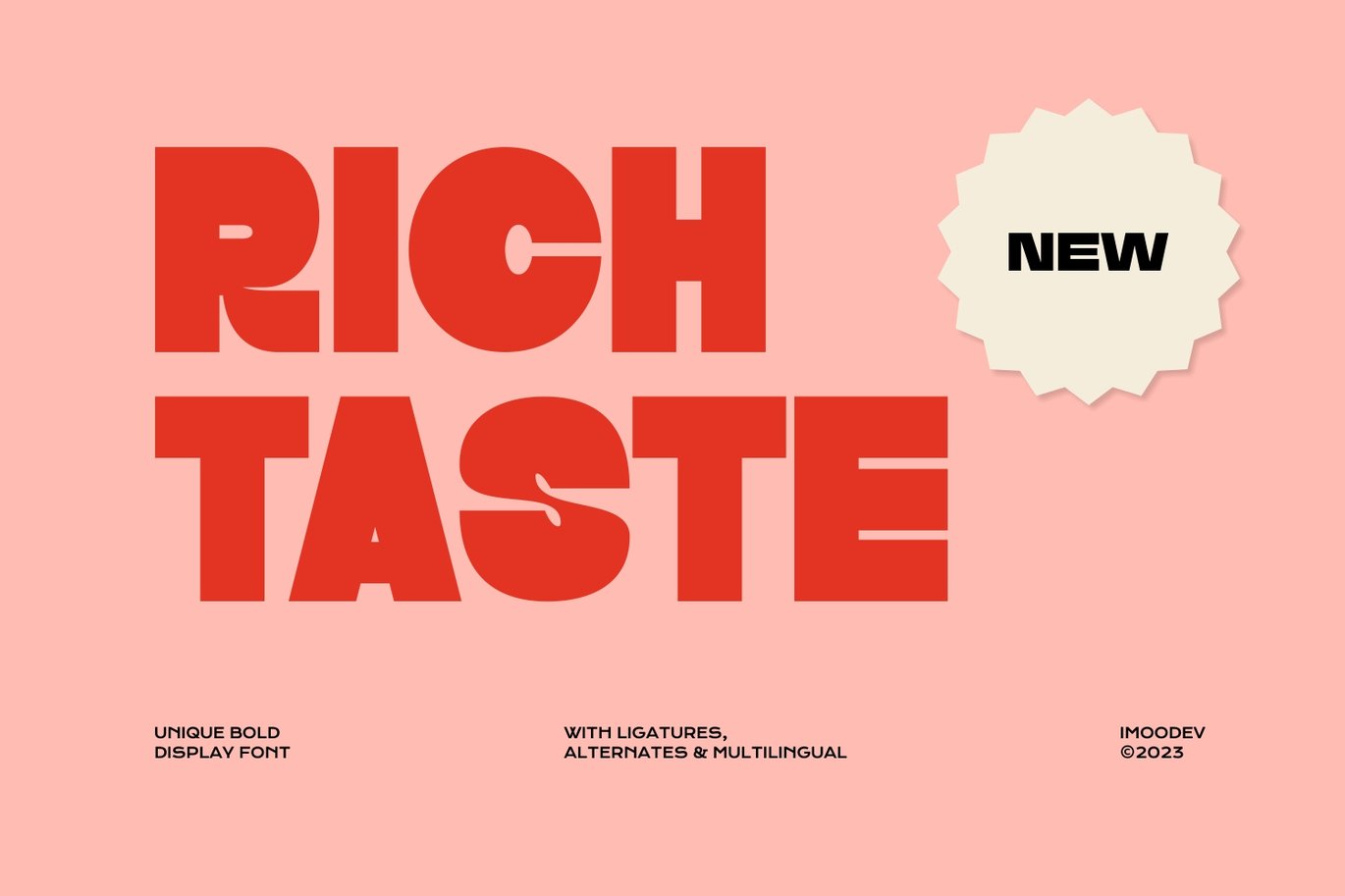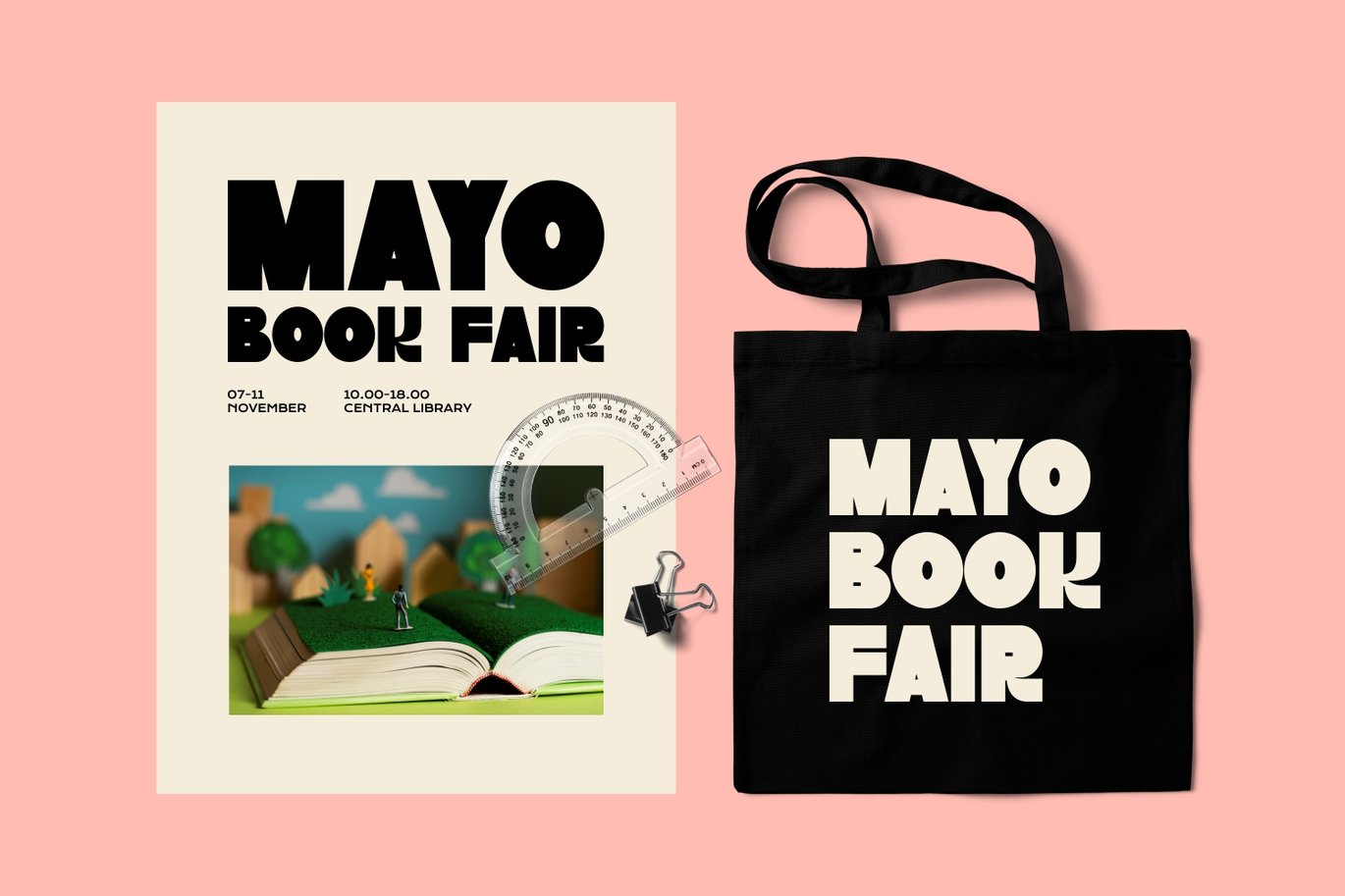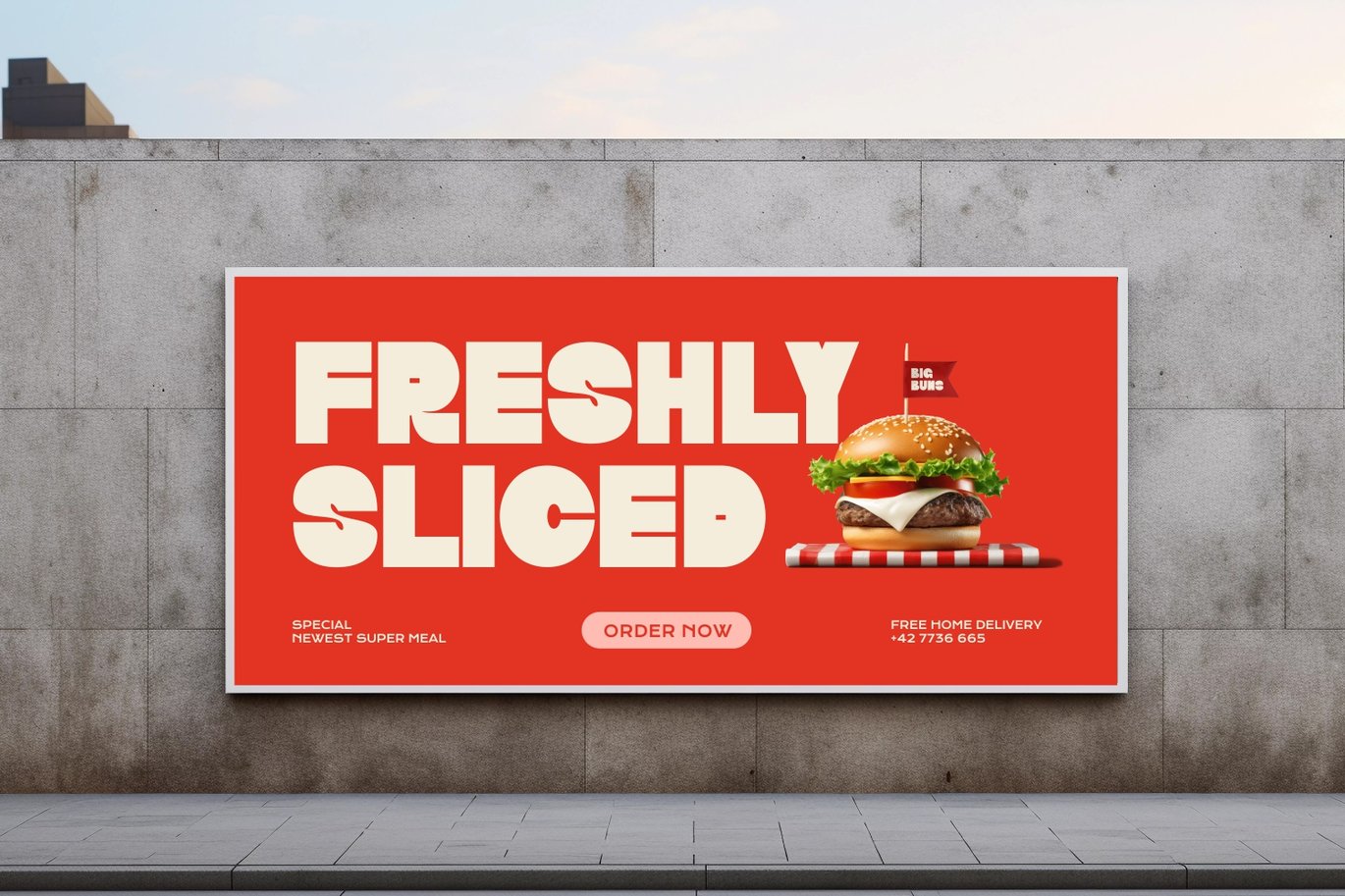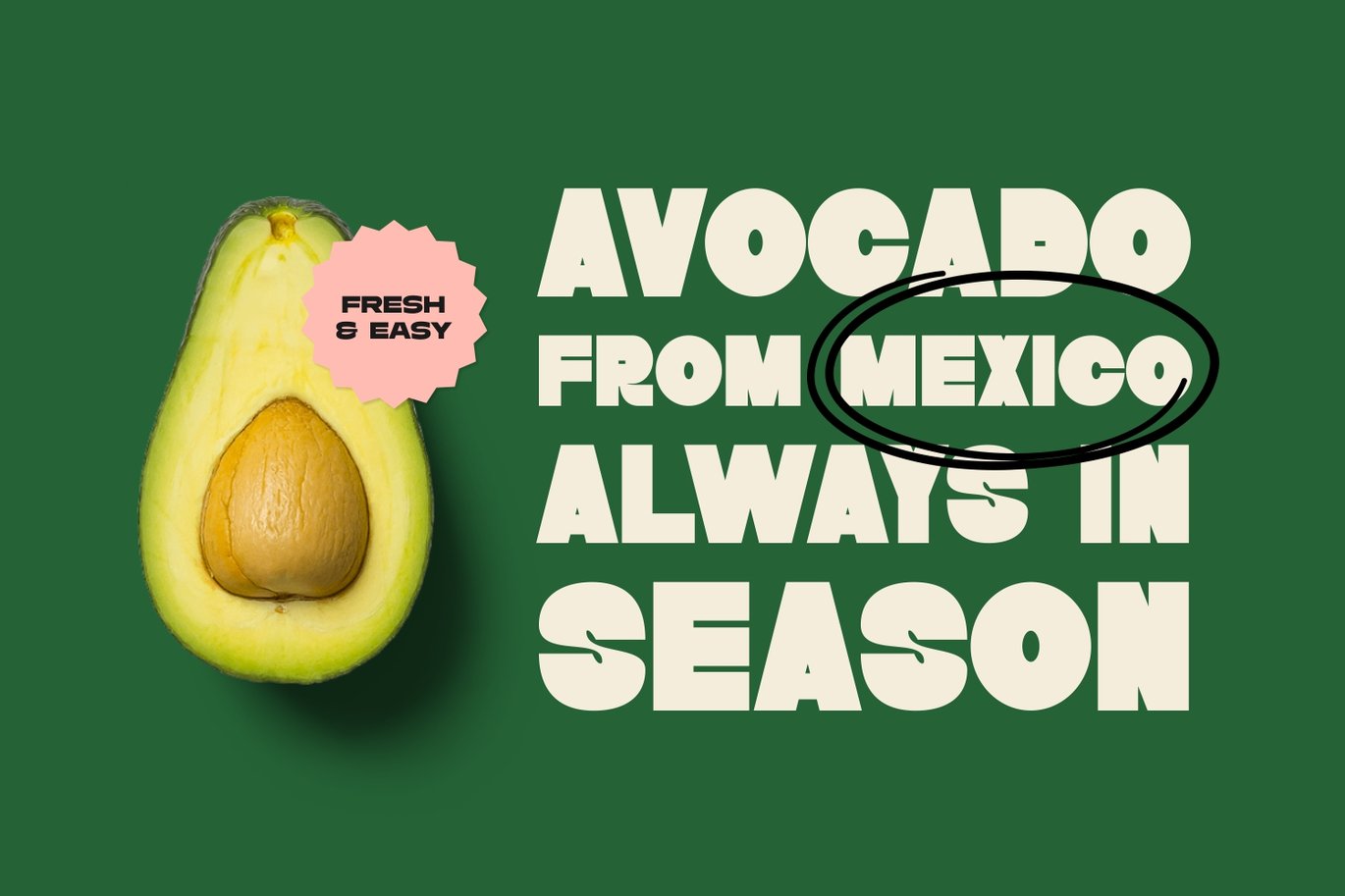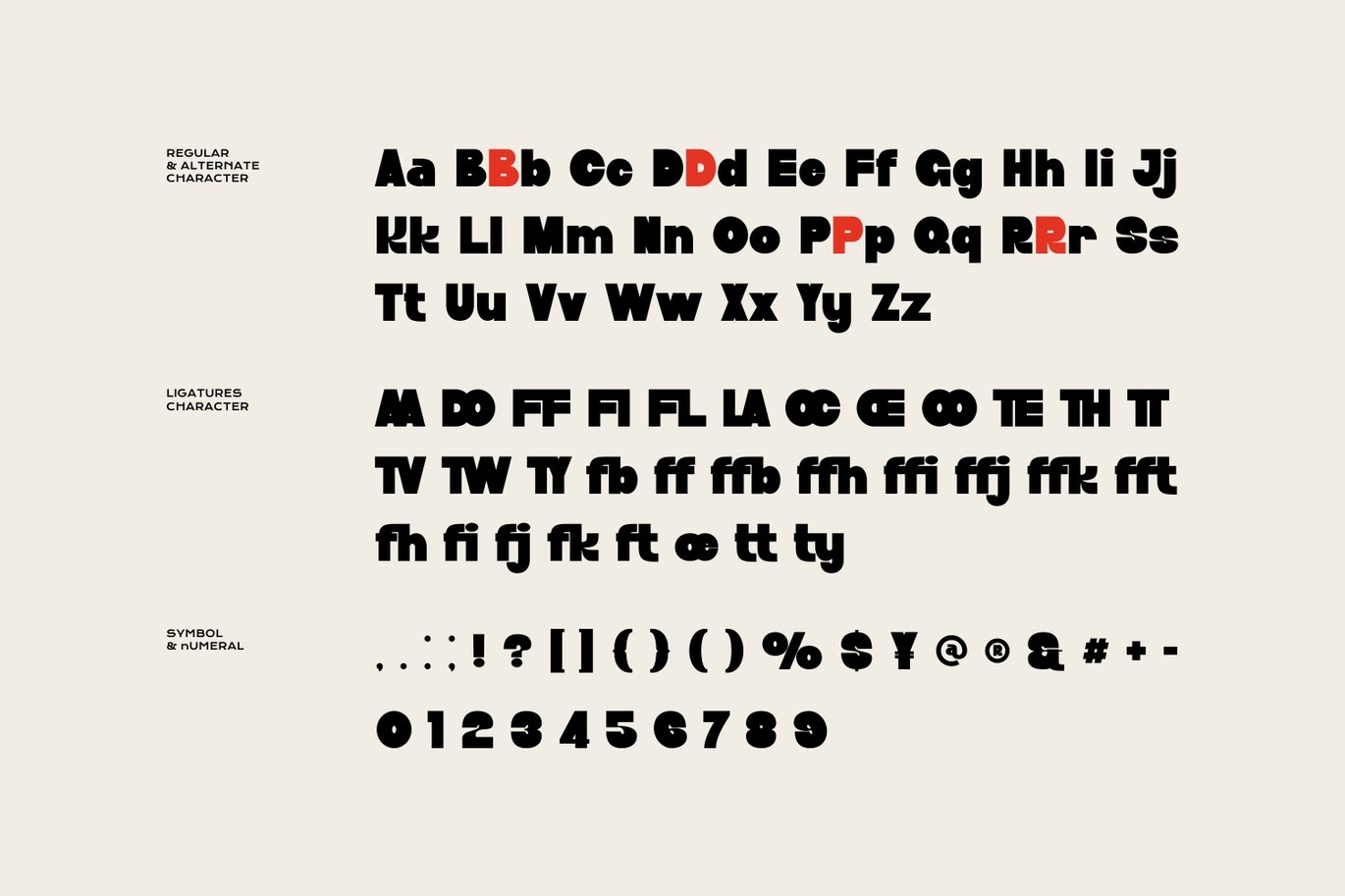
Rich Taste – Unique Bold Display Font
Rich Taste is a unique bold display font that has smooth curves and a visual style a can embodies charm and elegance in every lettering, making your work look stunning and attractive.
A versatile font that works in both uppercase and lowercase sizes, suitable for a wide variety of projects such as a display font for headings, logo fonts, invitations, branding, book covers, magazine layouts, card, product packaging, product mockup, mugs, posters, labels, editorials, art deco, and any type of advertising purpose.